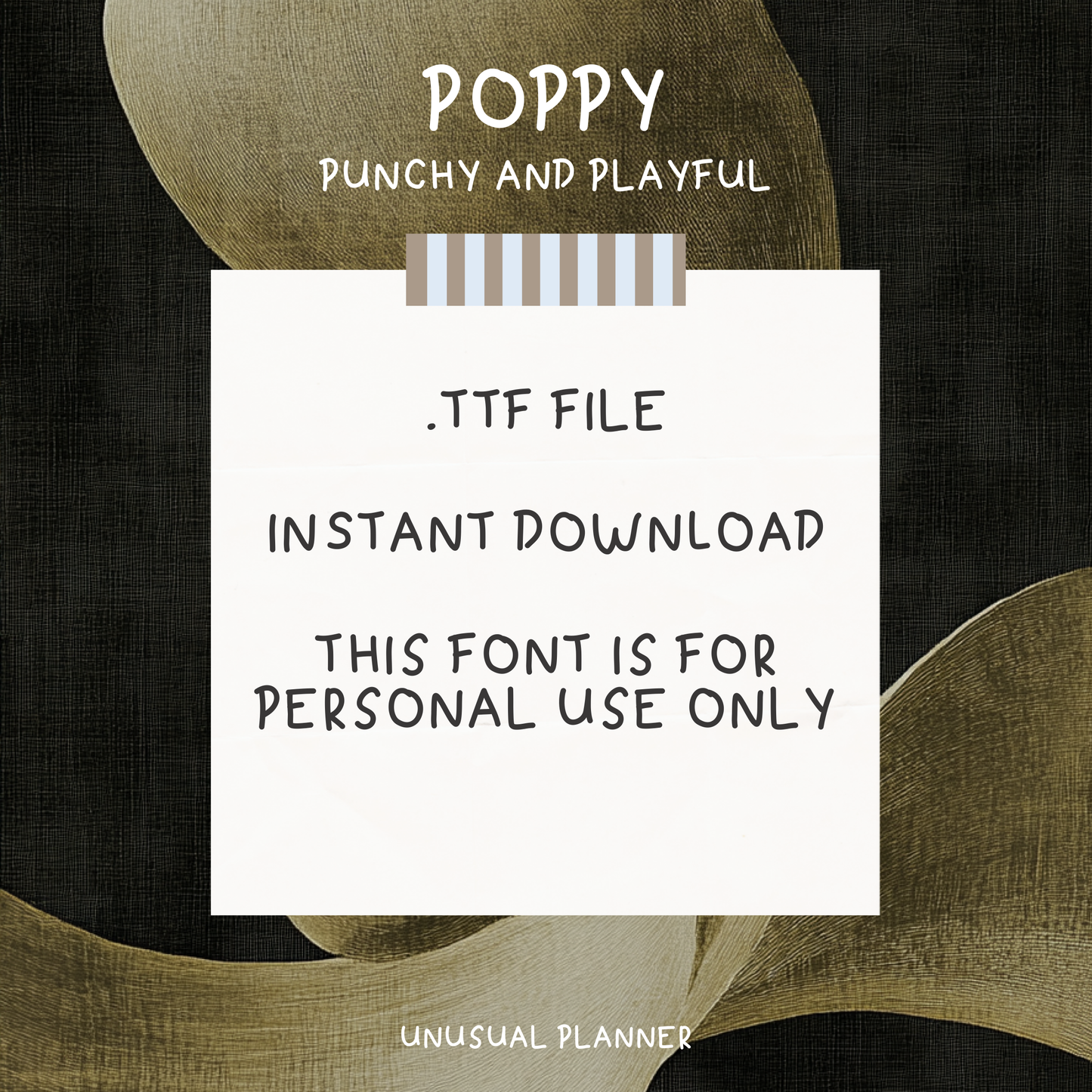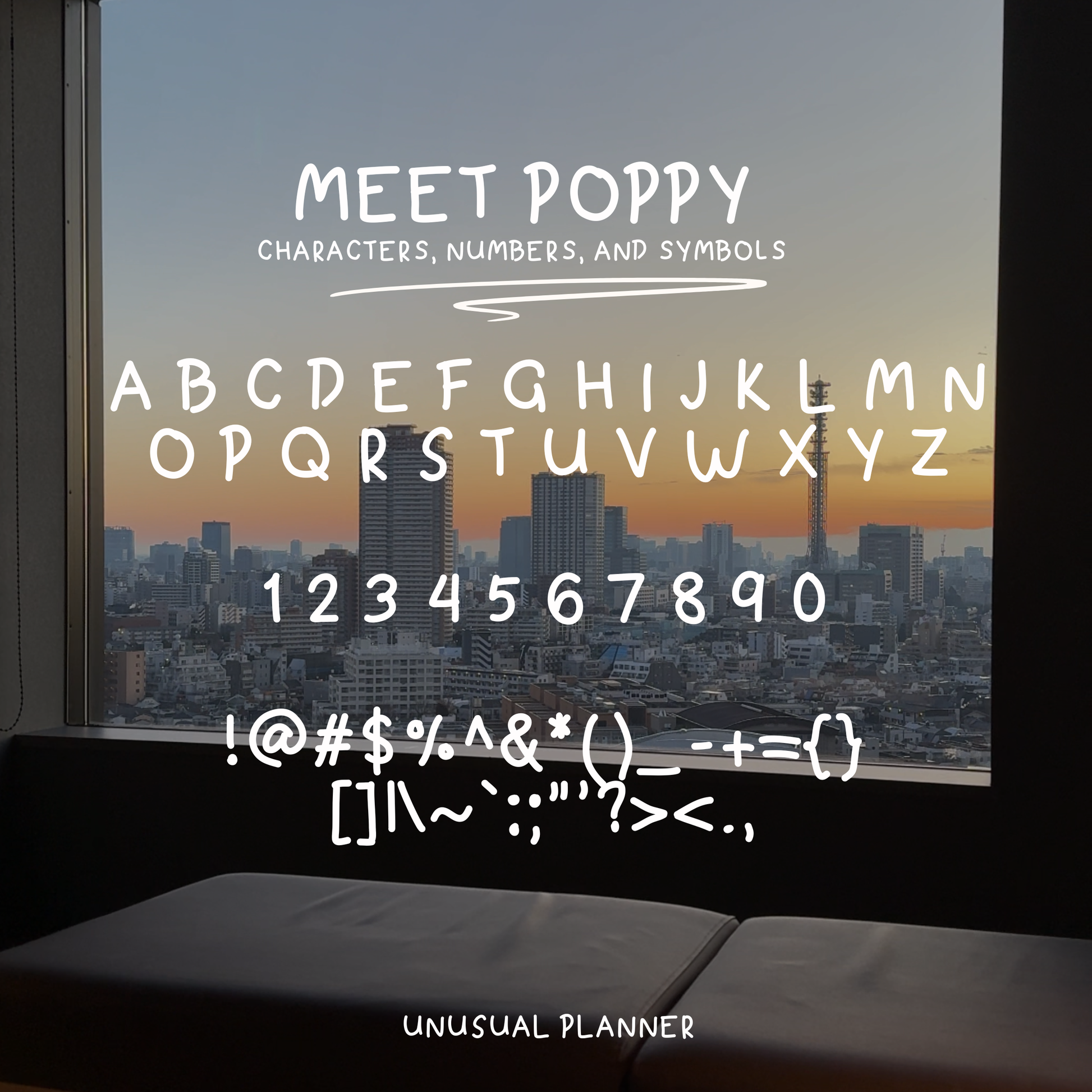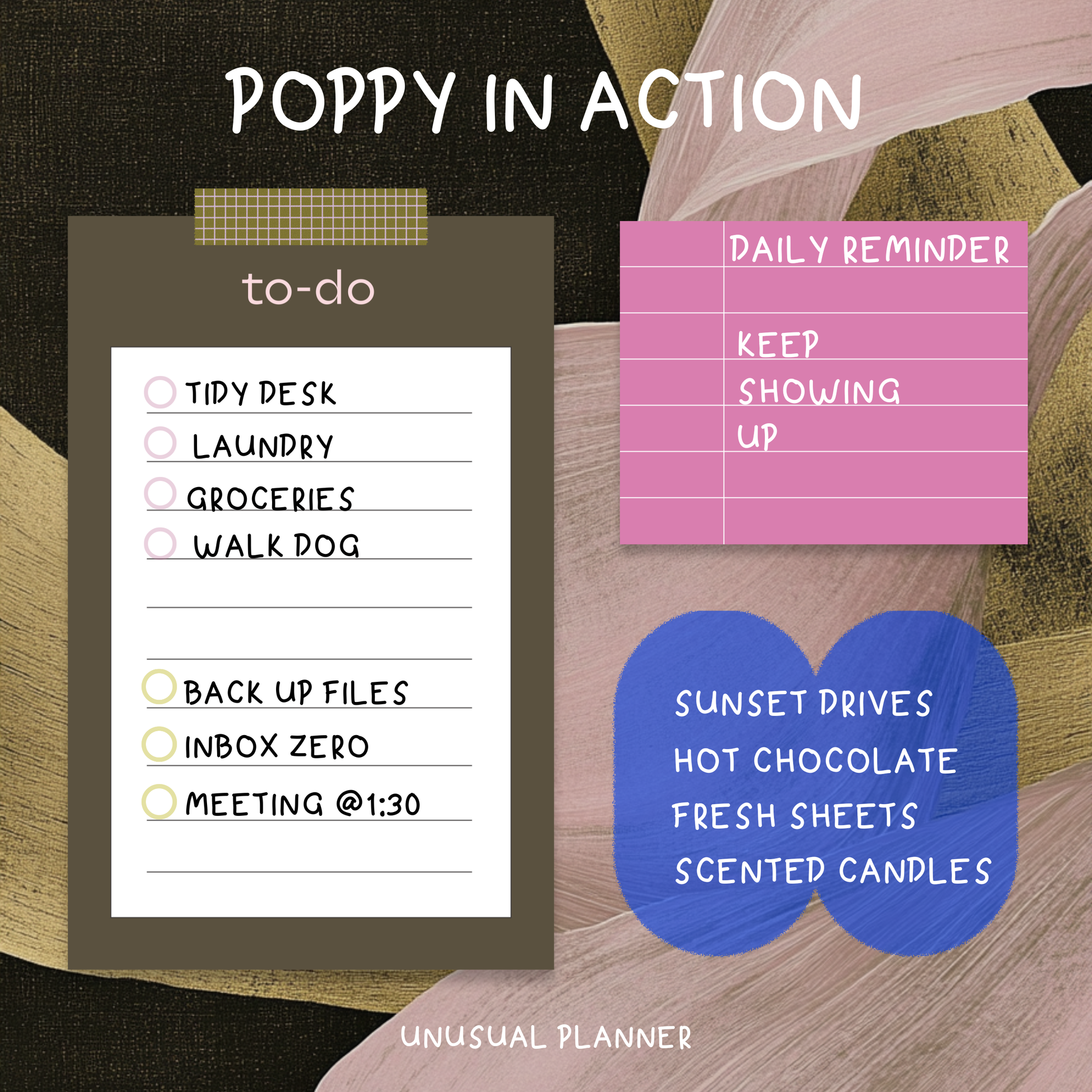
Poppy Handwritten Font
Poppy makes your text stand out. Its bold all-caps design adds energy to headers, labels, and short lists while staying clean and easy to read. Designed for digital planners, note-taking, and layouts in GoodNotes and Notability.
Use it for: headers, labels, short lists, and highlights.
Poppy, a playful all-caps display font.
Ideal for digital planners, notes, stickers, and creative layouts. Works with most design apps and devices, featuring a bold all-caps style that adds personality and impact to any page.